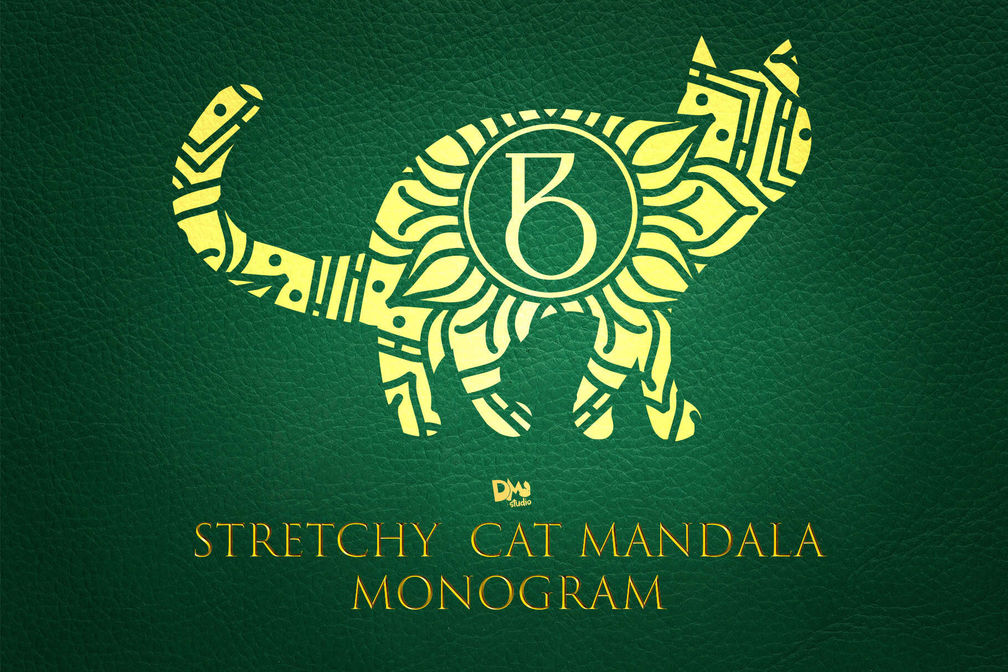
Stretchy Cat Mandala Monogram
Stretchy Cat Mandala Monogram – Playful & Artistic Feline Monogram Font
Stretchy Cat Mandala Monogram is a lively and expressive monogram font that captures the flexible charm of cats mid-stretch, intertwined with detailed mandala artistry. This font brings a fun yet elegant touch to any project, making it ideal for creative branding, cat-themed gifts, yoga and wellness materials, pet boutiques, and whimsical stationery. Each letter stretches with character, radiating both joy and grace.
• Stretching Cat Silhouettes with Mandalas: Every letter features a playful feline pose enhanced by intricate mandala designs.
• Whimsical & Decorative Look: Adds personality to monogram-based designs, perfect for pet lovers and artistic creators.
• Creative Versatility: Great for logos, personalized products, holistic branding, and fun printables.